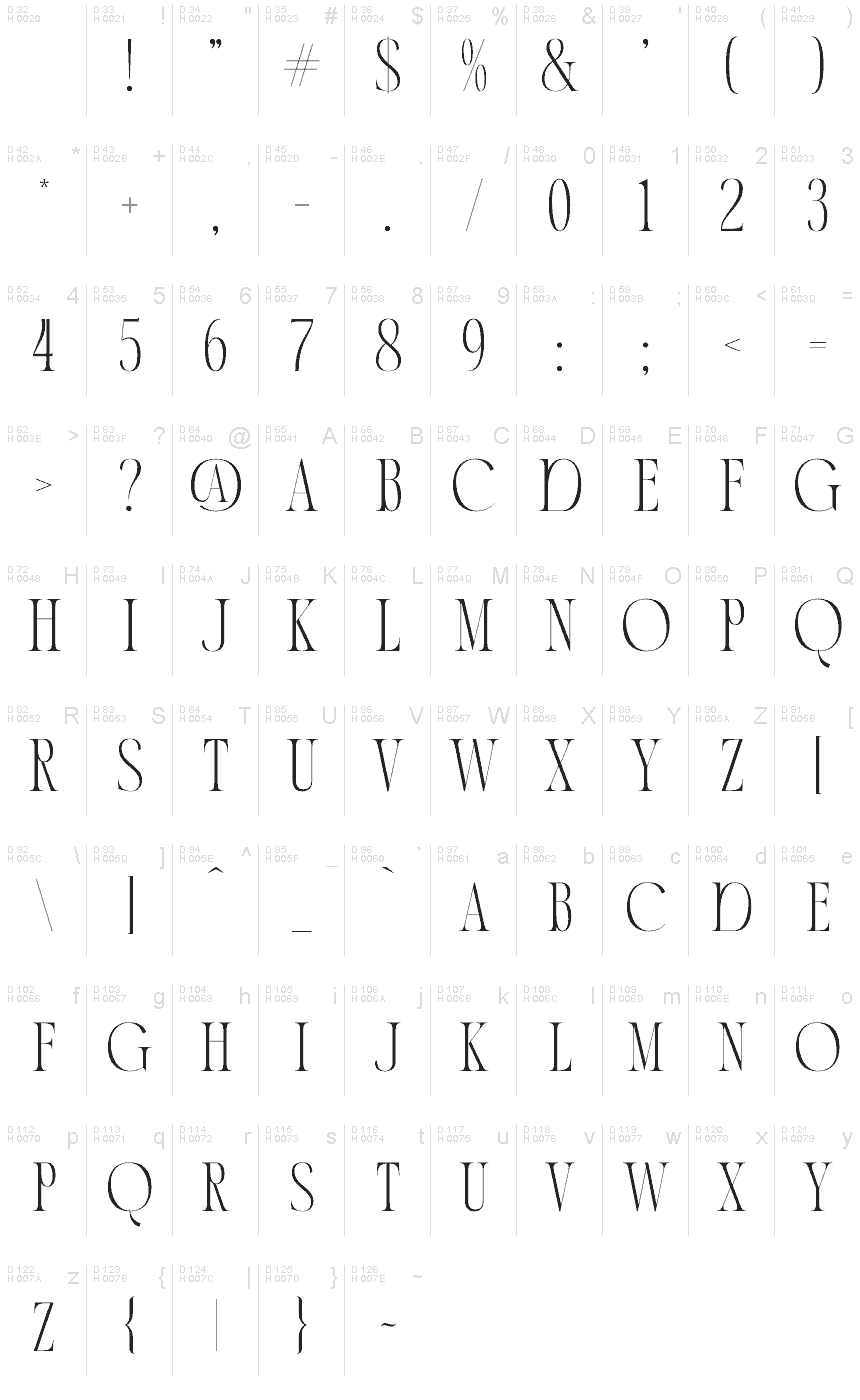
Ronachy
Ronachy font from Storytype Studio is a refined condensed serif font combining elegant lettering with minimalist lines and an overall sophisticated vibe. Full of charm and modern-day influences, it works perfectly in upscale designs that require a high-end brand appeal.